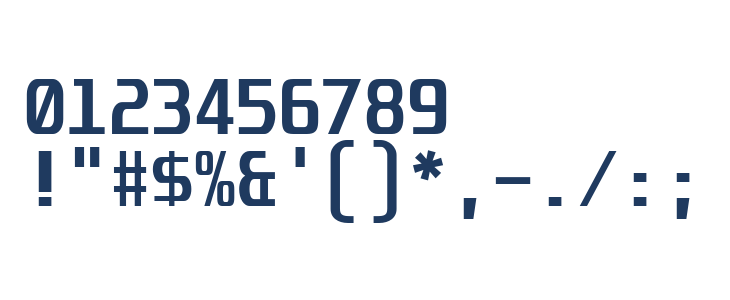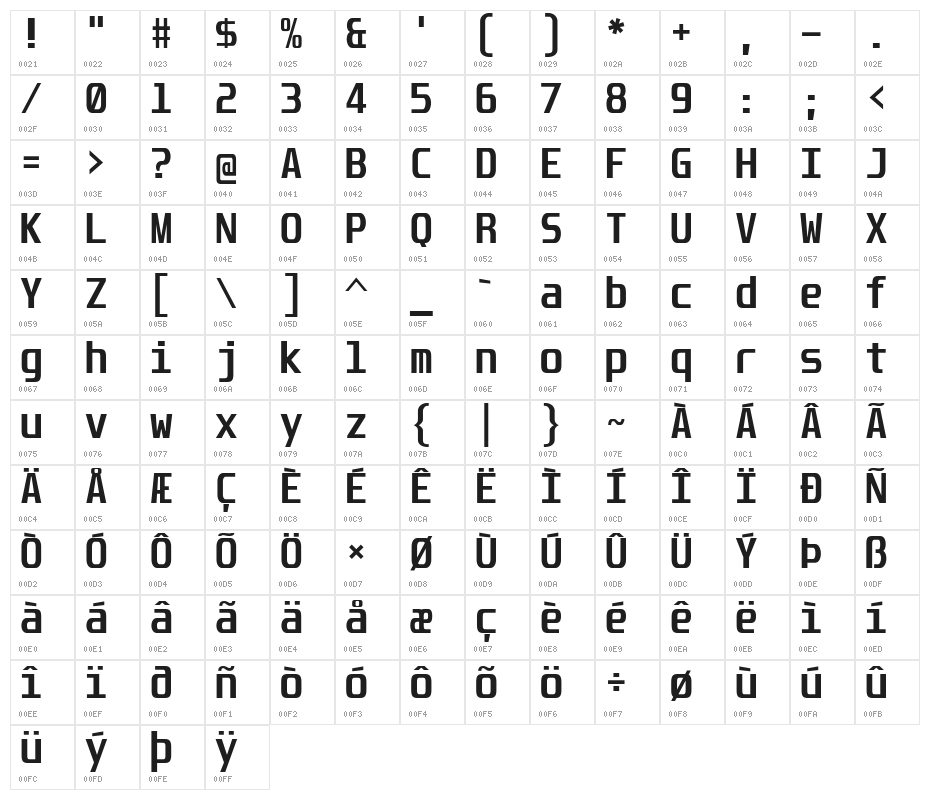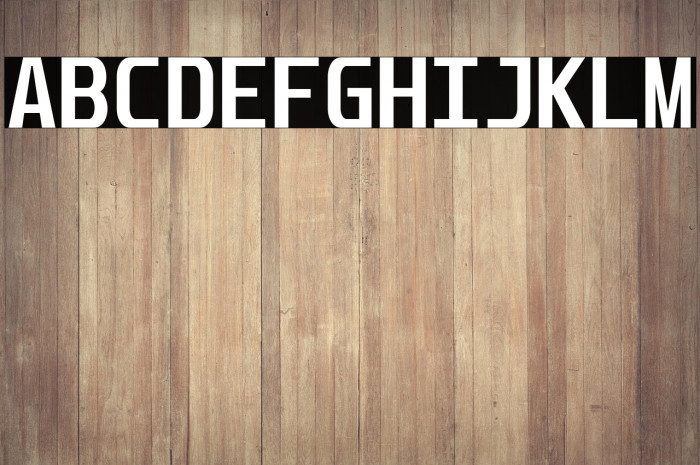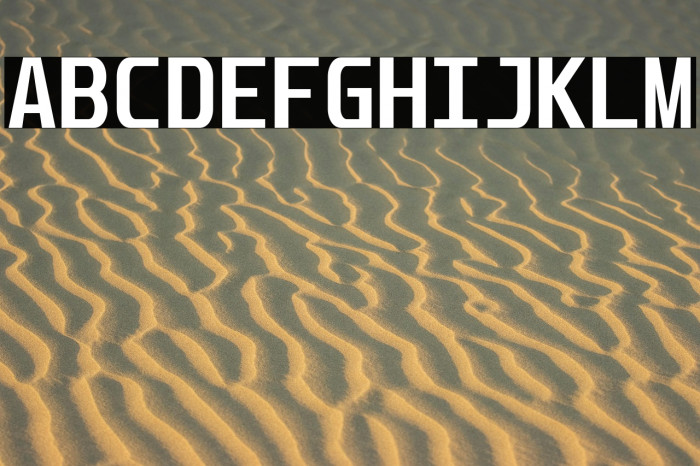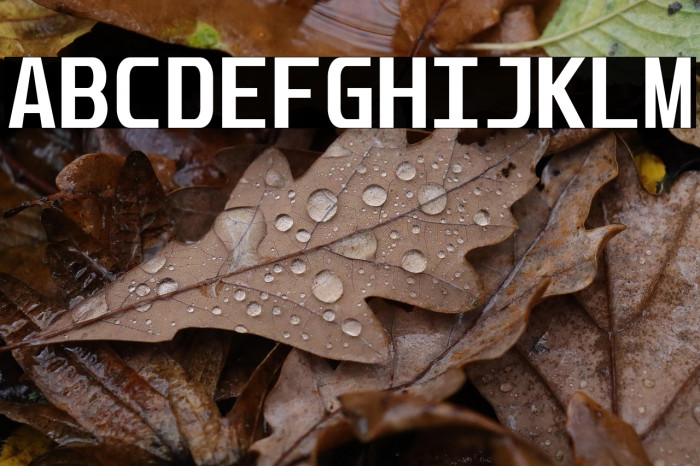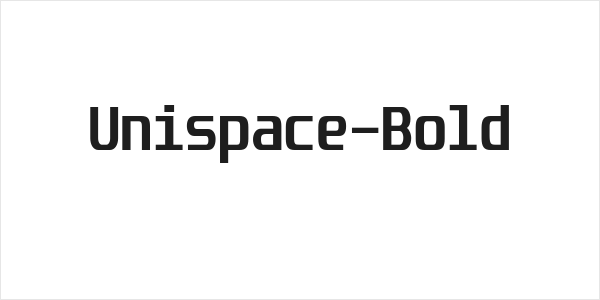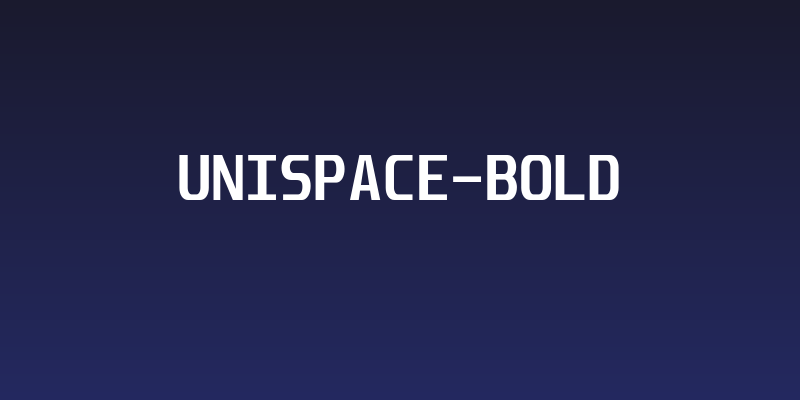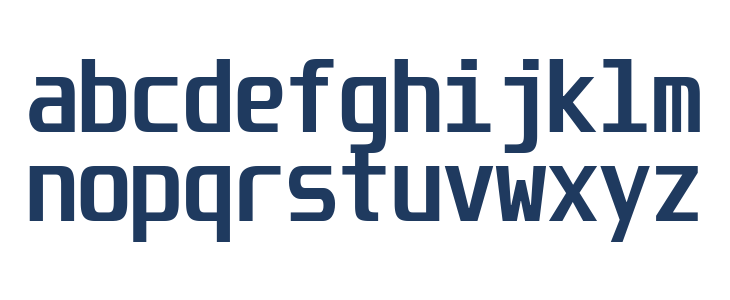
Unispace-Bold Font
Unispace-Bold Description
This font features a bold, geometric design with a modern and clean aesthetic. The characters are uniformly structured, with straight lines and sharp angles, giving it a futuristic and technical appearance. The uppercase and lowercase letters maintain a consistent height, contributing to a cohesive look. The numerals are distinct and easily readable, while the special characters are designed to match the overall style. This font is well-suited for digital and print media where clarity and impact are essential.
| Use Case | Headlines, Logos, Digital interfaces |
| Proposed Projects | Ideal for technology branding, digital interfaces, posters, and signage. |